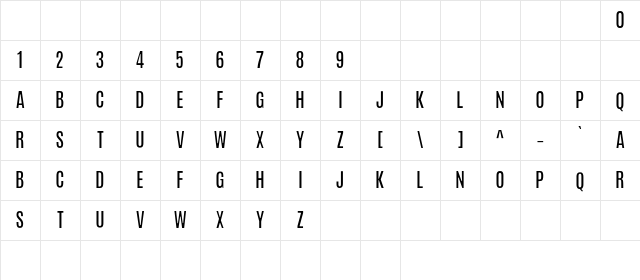
Ioannina Light Free Font
Ioannina Light
Foundry: Shanaya Creative
Designer: Naya
Design Context for Ioannina
Ioannina is a composed and adaptable typeface that performs quietly and consistently across a wide range of design contexts. Its slender proportions lend an understated elegance to any composition.